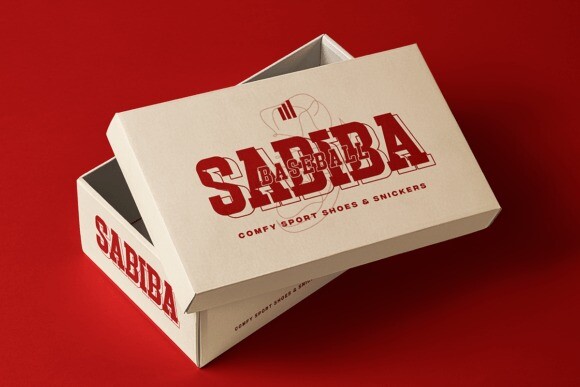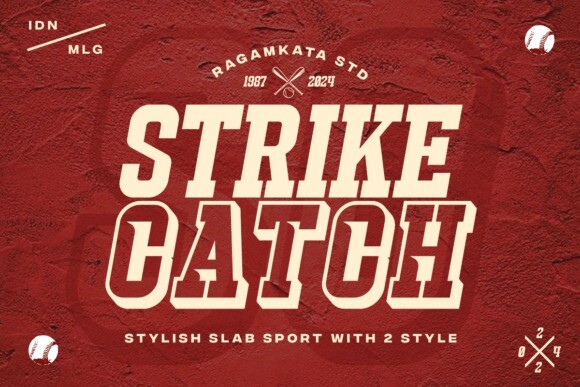
Strike Catch Font
Designer: RagamKata Studio
Strike Catch Font, a stylish slab sport with 2 styles that combine the power and speed of modern sports with the elegance of classic design. Perfect for sports headlines, logos, branding, and more, StrikeCatch features 12 styles: Regular, Italic, Outline, Extrude, Italic Outline, Italic Extrude, Slash, Slash Italic, Slash Outline, Slash Extrude, Slash Italic Outline & Slash Italic Extrude. Its smooth curves, clear alternates, and modern aesthetics ensure readability and a dynamic presence.
Strike Catch is versatile and suitable for various projects, including invitations, magazines, product packaging, posters, and more. Ideal for personal projects, studios, corporate, and creative agencies, Strike Catch adds a powerful, attractive, and contemporary touch to any design.